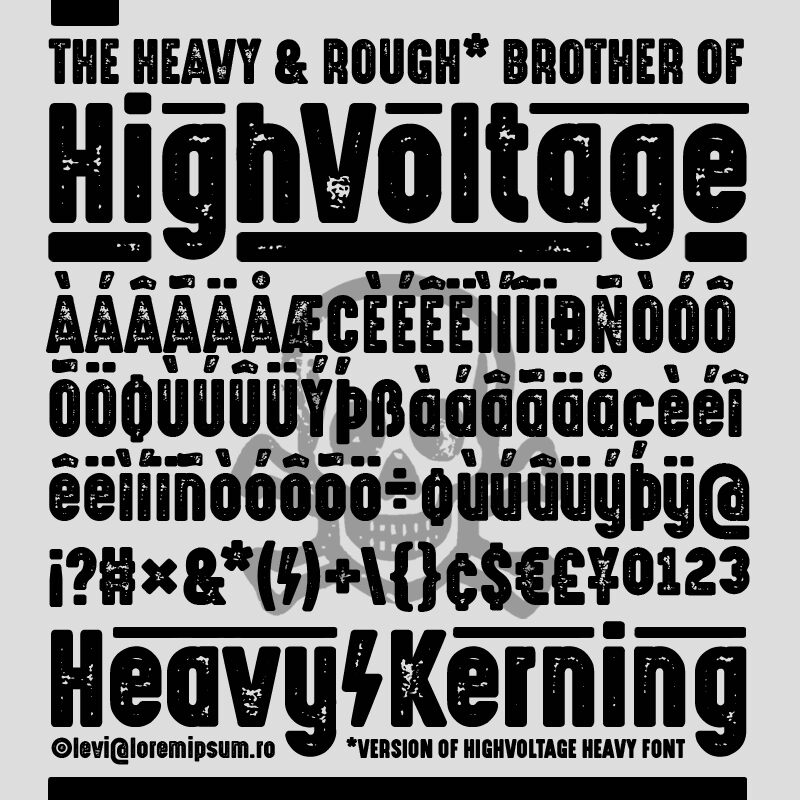
HighVoltage Heavy Rough
HighVoltage Heavy Rough is a bold and condensed display font that exudes an edgy and rough style, perfect for projects that demand attention and authority. The eroded texture of the font adds a unique touch to any design, making it ideal for posters, album covers, logos, and branding materials. With its condensed width, HighVoltage Heavy Rough can fit more text into limited space without sacrificing legibility or impact. Whether it's for a music festival or an energy drink brand, this semi-bold typeface will electrify any design with its high voltage energy.
The Heavy and Rough brother of HighVoltage Font, secondary option for HighVoltage Heavy.
Font Inspired by High Voltage Warnings